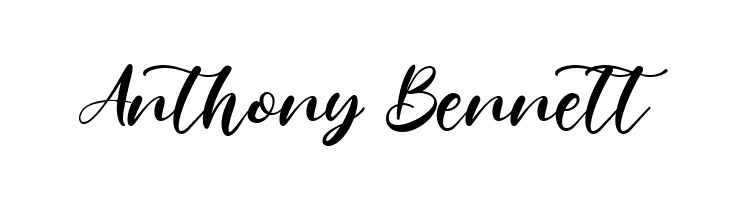
A fluid and elegant script font with a natural, cursive flow.
A flowing, cursive font with elegant, connected strokes and a handwritten appearance.
A bold, flowing script font with a handwritten style.
An elegant, flowing script font with a calligraphic style.
A fluid, elegant handwritten font with a natural flow and delicate strokes.
An elegant script font with flowing, interconnected characters and ornate flourishes.
A lively handwritten font with dynamic strokes and artistic flair.
A flowing, cursive font with elegant, connected strokes.
A bold, calligraphic script font with elegant curves and dramatic flourishes.
A bold, dynamic script font with elegant, flowing strokes.
An elegant script font with flowing, cursive letterforms.
A classic calligraphic font with elegant, flowing strokes and sharp serifs.
A refined, thin script font with elegant, flowing curves.
A dynamic, cursive handwritten font with fluid strokes.
A dynamic and expressive handwritten font with fluid strokes and a brush-like texture.
A graceful and elegant handwritten script with fluid, flowing letterforms.
A modern, cursive font with a playful and elegant style.
A bold, flowing script font with elegant, cursive letterforms.
A playful handwritten font with flowing, irregular strokes and a casual style.
A flowing, cursive font with elegant, connected strokes.